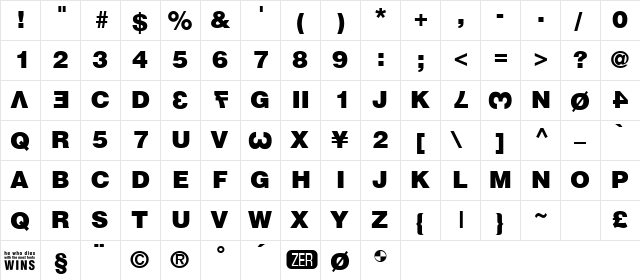
Drum Komputer Regular
Design Context for Drum Komputer Typeface
Drum Komputer is a composed and adaptable typeface that performs quietly and consistently across a wide range of design contexts.